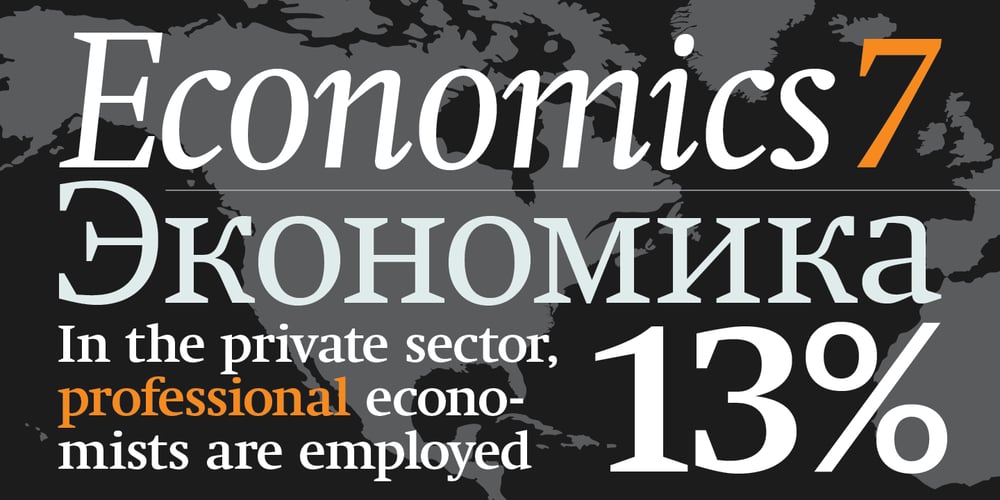
Swift 2.0 Cyrillic
Swift 2.0 Cyrillic font
Swift 2.0 Cyrillic Font Family was designed by Tagir Safayev, Gerard Unger and published by ParaType. Swift 2.0 Cyrillic contains 8 styles and family package options. Gerard Unger developed this newspaper font between 1984 and 1987 for Dr.-Ing. Rudolf Hell GmbH, Kiel. He was mainly influenced by William A. Dwiggins (1880-1956), the typographic consultant of Mergenthaler Linotype, who started to develop more legible, alternative fonts for newspaper printing as early as 1930. Swift was named after the fast flying bird. Austere and concise, firm and original, Swift is suited for almost any purpose. Swift has been specially developed to sustain a maximum of quality and readability when used in unfavorable print and display processes, e.g. newspapers, laser printing and low resolution screens. Its robust, yet elegant serifs and its large x-height provide an undeniable distinction to the typeface, making it suitable for corporate ID and advertising purposes as well. Swift 2.0 family was designed in 1995. It’s an improved version with technical and aesthetic enhancements and new family members. The Cyrillic version was developed for ParaType in 2003 by Tagir Safayev. Please note that this family includes only basic latin characters; it does not include accented characters required for western and central Europe.